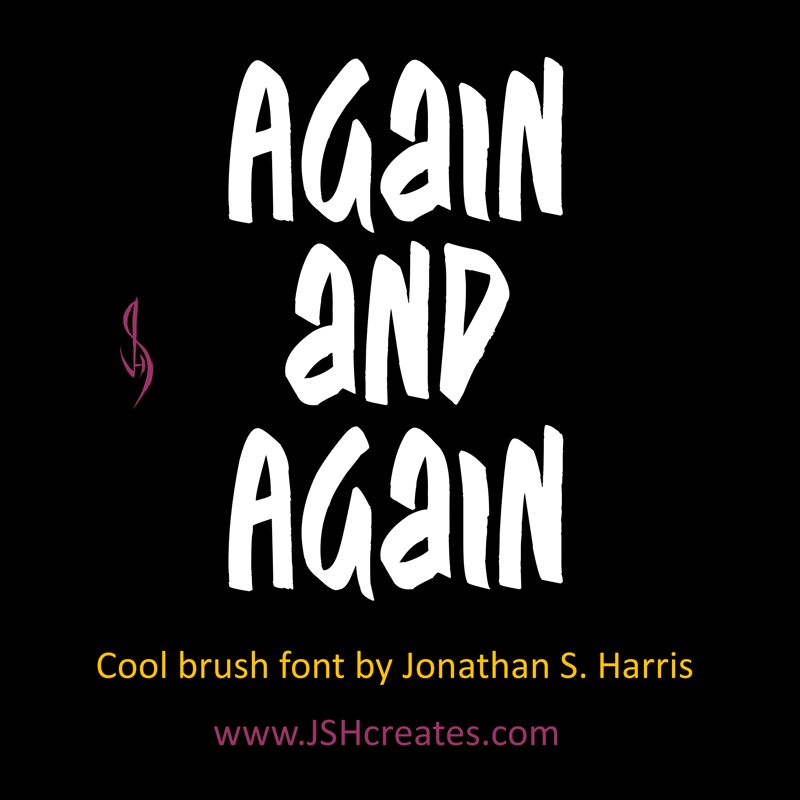
Again and Again
Looking for a smooth brush font that will grab your audience's attention? Look no further than Again and Again, the latest creation from JSH creates. With its extra-condensed width and sleek, flowing lines, this font is perfect for projects that demand a modern and edgy feel. Whether you're designing marketing materials, crafting social media posts, or creating eye-catching logos, Again and Again is the ideal choice. Its bold strokes and distinctive curves will make your message stand out from the crowd. So why settle for an ordinary font when you can make an impact with Again and Again?